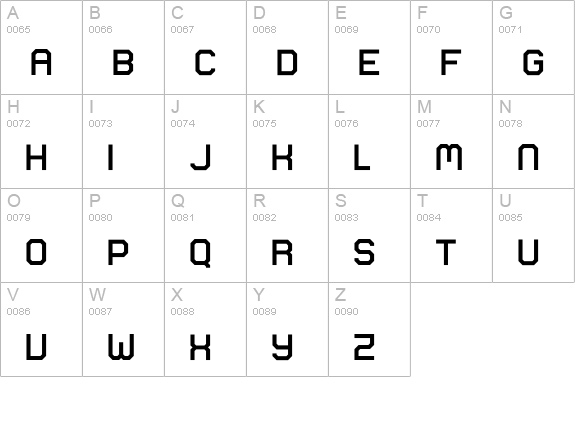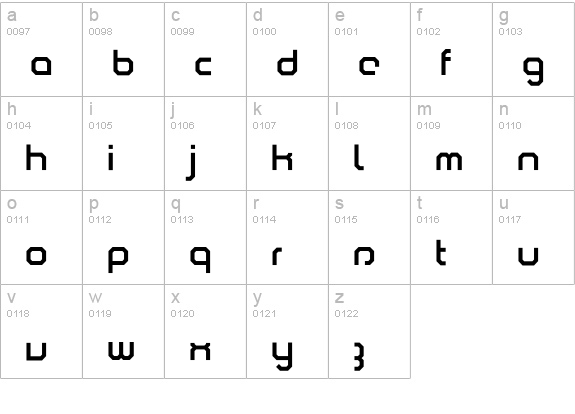
Comsat-Navy-Unit Font Details
Comsat-Navy-Unit font is a modern and stylish typeface that exudes a sense of sophistication and elegance. With its sleek lines and sharp edges, this font is perfect for adding a touch of class to any design project. The unique character shapes and proportions make Comsat-Navy-Unit font stand out from the crowd, making it a versatile choice for both print and digital applications. One of the best things about Comsat-Navy-Unit font is that it is available for free download at FontsMarket.com. This means that you can easily access this high-quality font without having to worry about any costs. Whether you are working on a personal project or a professional design, Comsat-Navy-Unit font is sure to elevate your work and make a lasting impression. Download Comsat-Navy-Unit font today from FontsMarket.com and discover the endless possibilities this font has to offer. Let your creativity shine with this stunning and free typeface that will take your designs to the next level.